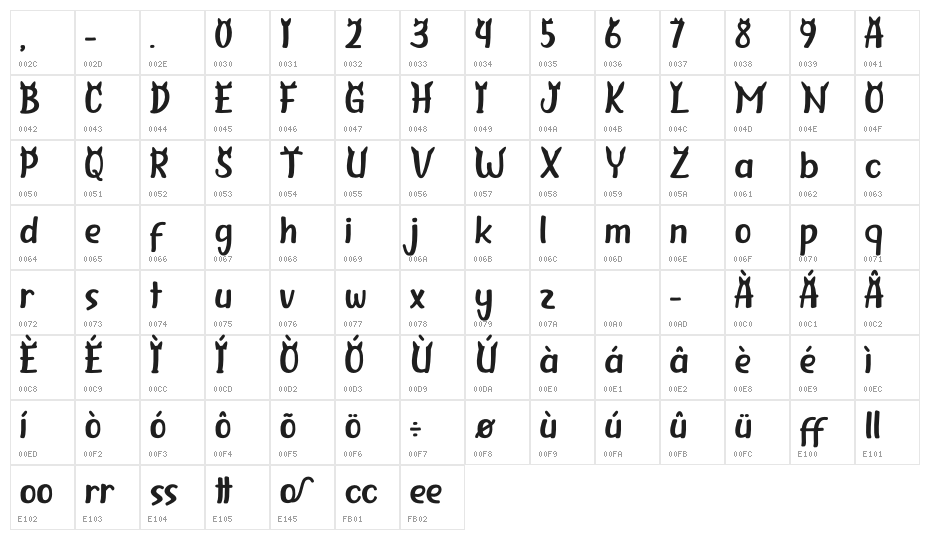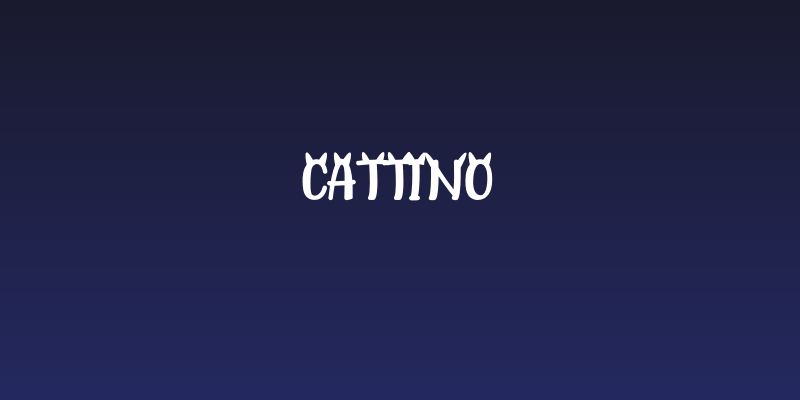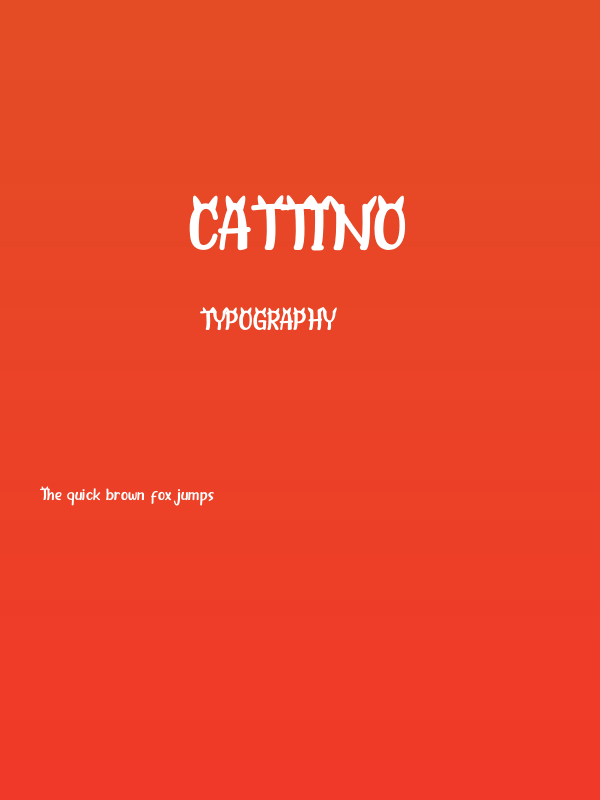
Cattino Font
Cattino Description
This font features a playful and whimsical design, characterized by its bold, flowing strokes and slightly irregular shapes. The uppercase letters exhibit a unique blend of curves and angles, giving them a dynamic and lively appearance. The lowercase letters maintain a consistent style, with rounded forms and a friendly demeanor. Numbers are bold and easily readable, while the special characters add a touch of creativity with their distinctive designs. Overall, this font exudes a sense of fun and creativity, making it suitable for projects that aim to capture attention and convey a lighthearted tone.
| Proposed Projects | Ideal for children's books, playful branding, creative posters, and casual invitations. |